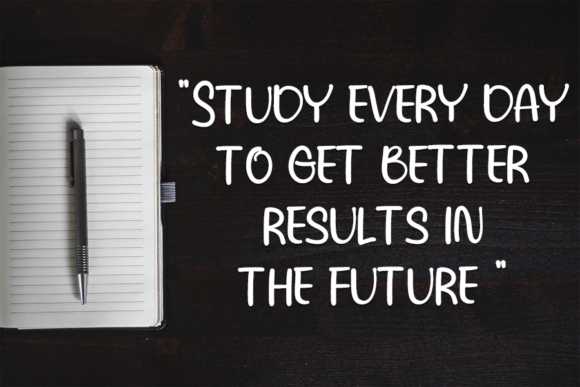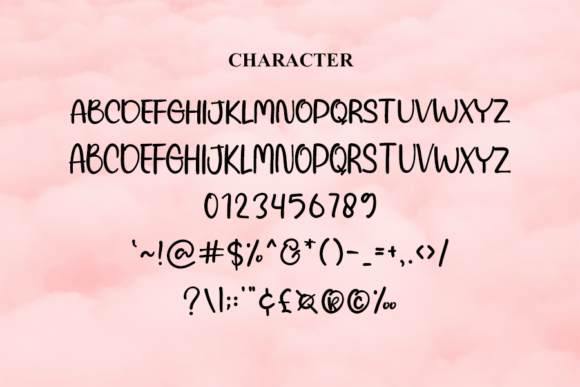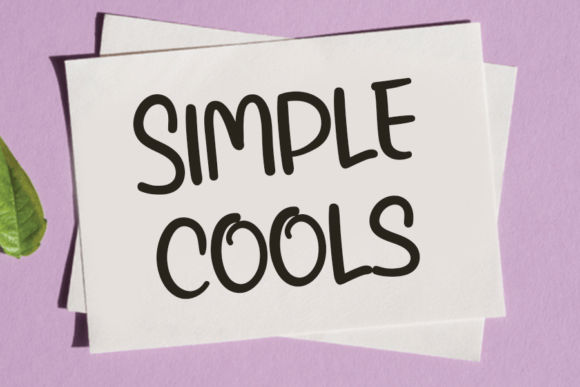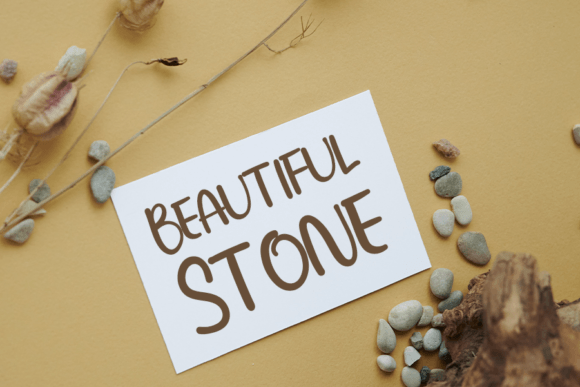
Notebook Font
About Notebook Font
**Notebook: A Beautiful and Refined Handwritten Font for Elegance**
Notebook is a font that exudes beauty and refinement, offering a classy, elegant, and modern look perfect for a wide range of design applications. Whether you’re working on logos, branding, invitations, stationery, wedding designs, social media posts, or any other creative project, Notebook adds a touch of sophistication and elegance to your work.
The charm of Notebook lies in its refined handwritten characters, meticulously crafted to convey a sense of beauty and authenticity. Each letter embodies a timeless elegance that enhances your design projects gracefully.
This font’s versatility ensures it can adapt to various design contexts. You can use it to create memorable logos and branding materials that leave a lasting impression, infuse sophistication into wedding invitations, add an elegant flair to your social media posts, or convey a sense of class in your stationery.
In summary, Notebook is more than just a font; it’s a source of beauty and elegance that enhances your design projects. Its refined handwritten letters make it the perfect choice for infusing sophistication and timeless style into your work. With Notebook, your creative projects will shine with a touch of classic and modern elegance. Choose Notebook, and let your designs captivate with its beautiful and refined charm.